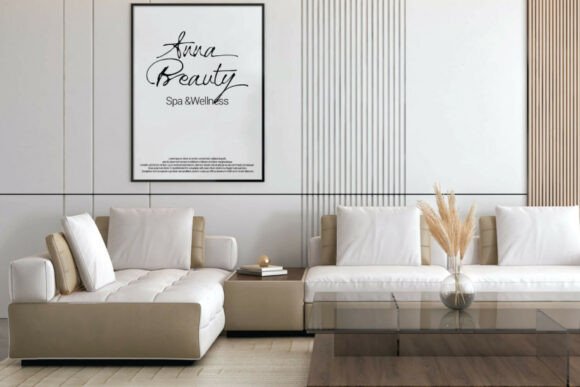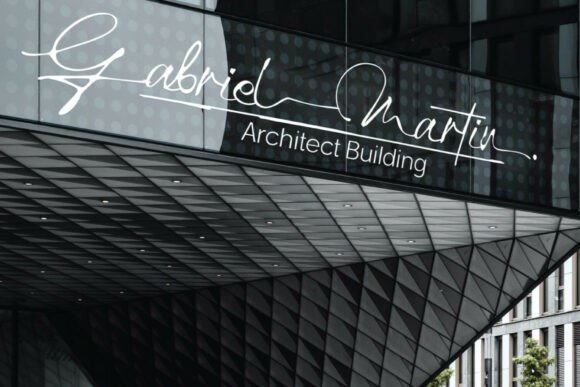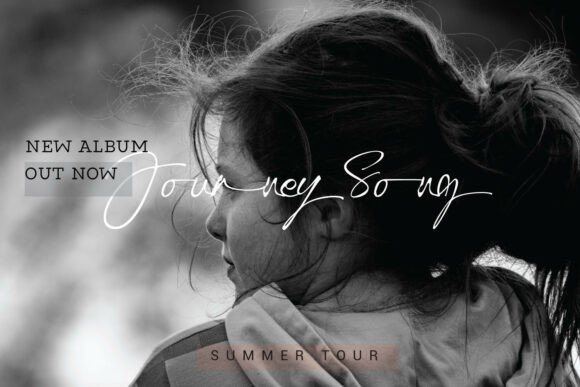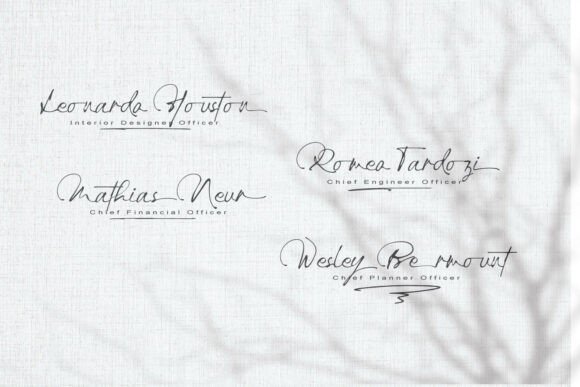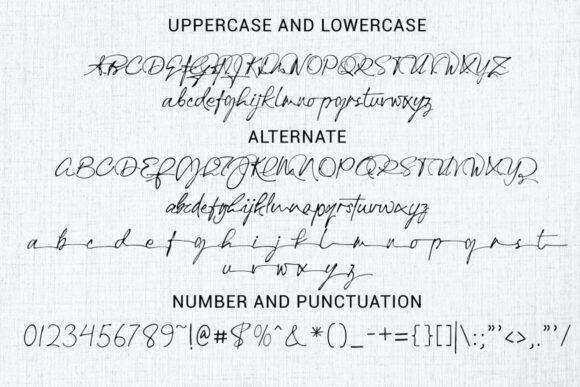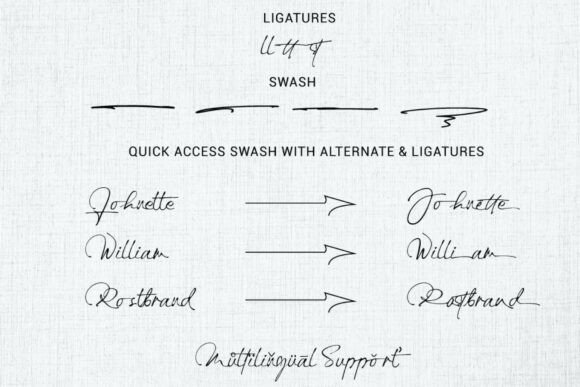
Introduction to Magoru Font
Introducing Magoru, a chic signature font that exudes an effortlessly elegant flow.
With its quintessential sophistication, Magoru imparts a luxe aura, transporting you to a world of grandeur Tailored perfectly to enhance a myriad of ventures, itโs a stunning choice for invigorating brand identities, crafting alluring invitations, devising charming wedding designs, and fashioning bespoke card names.